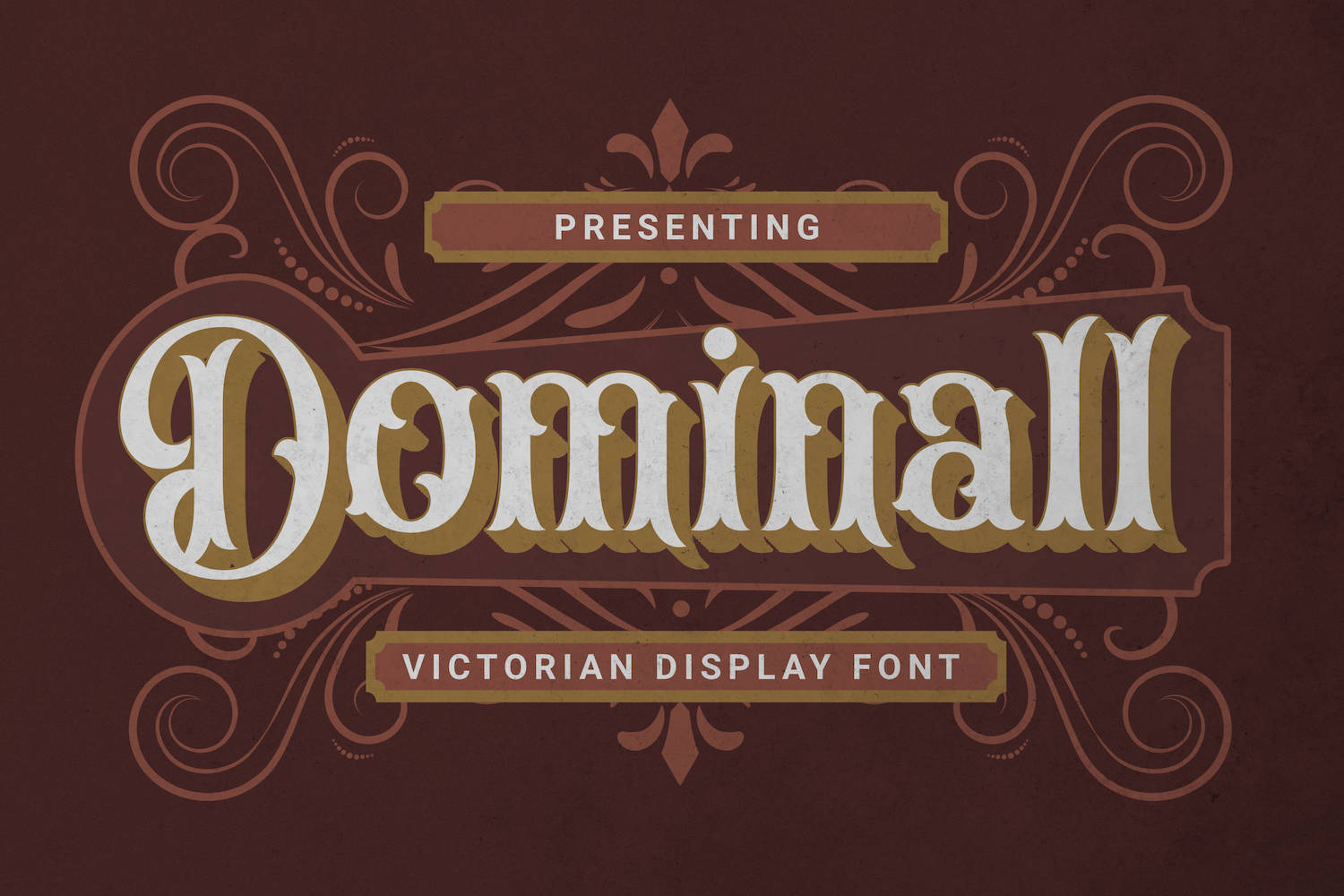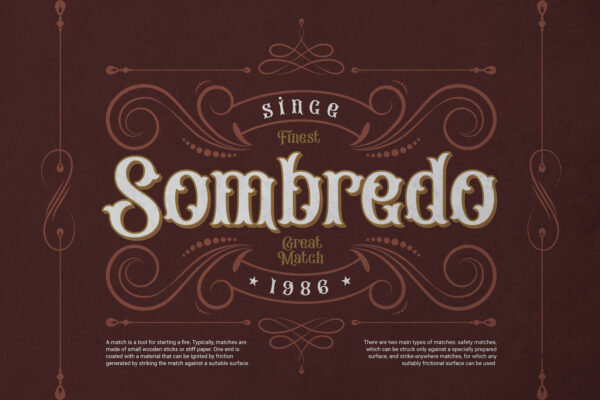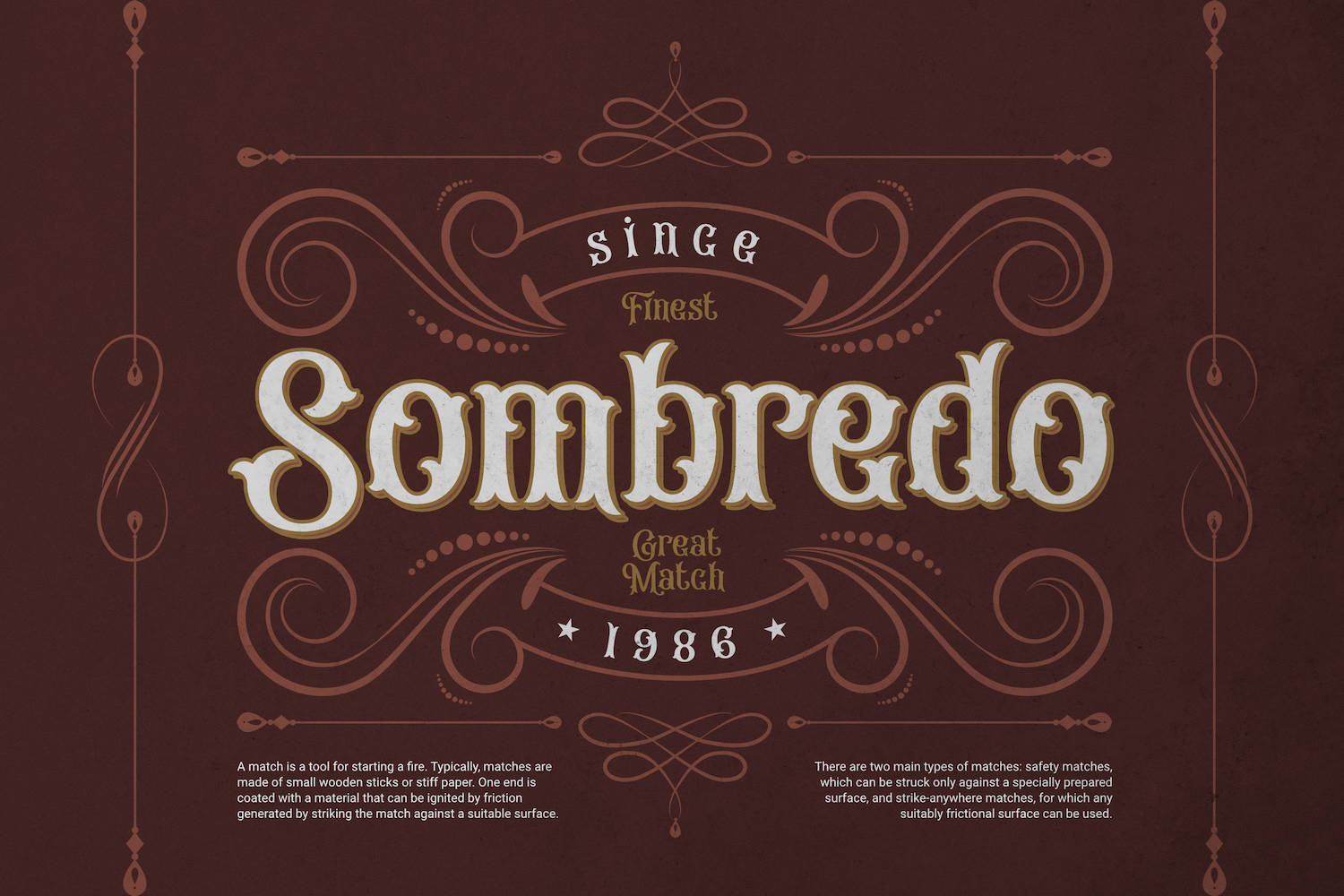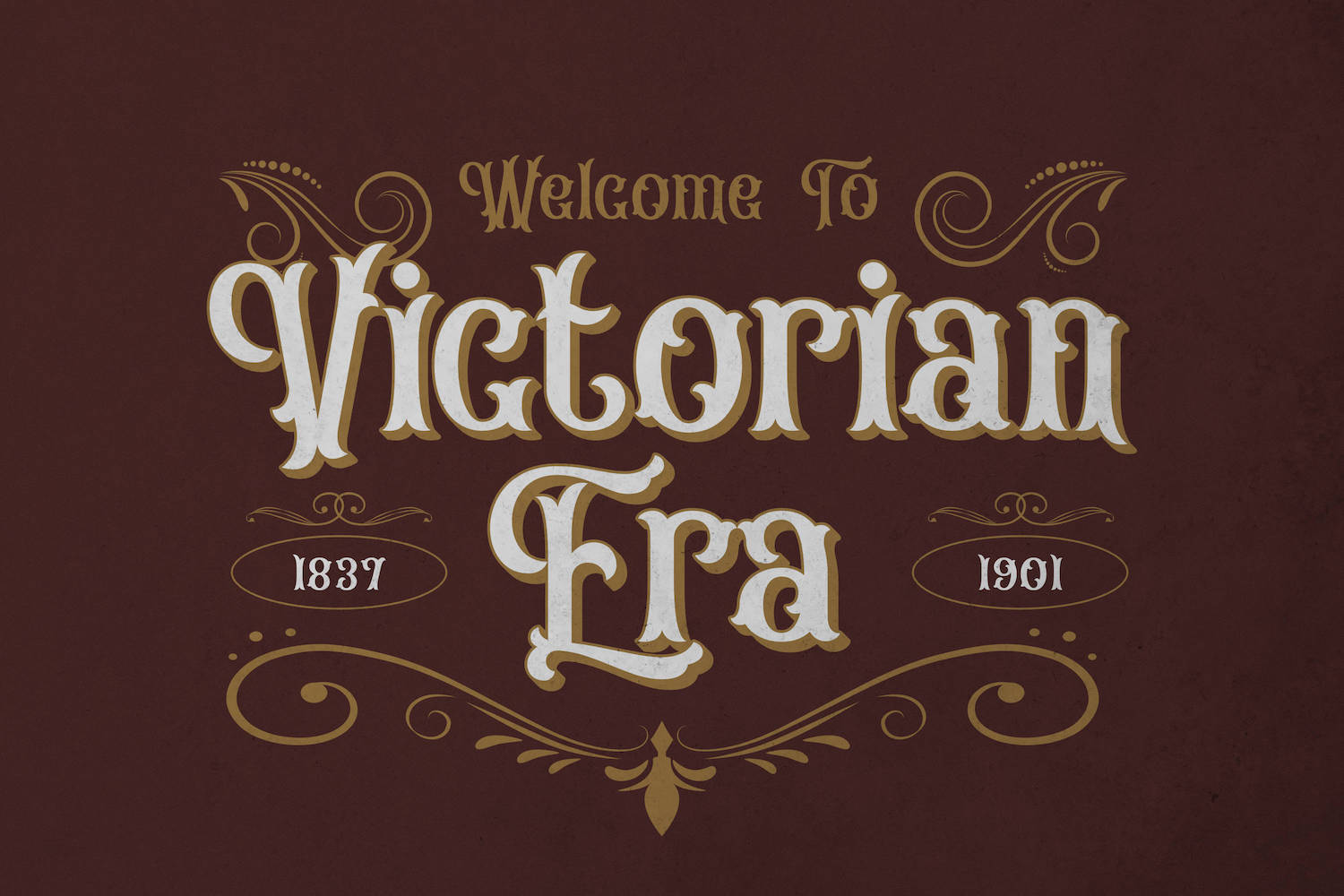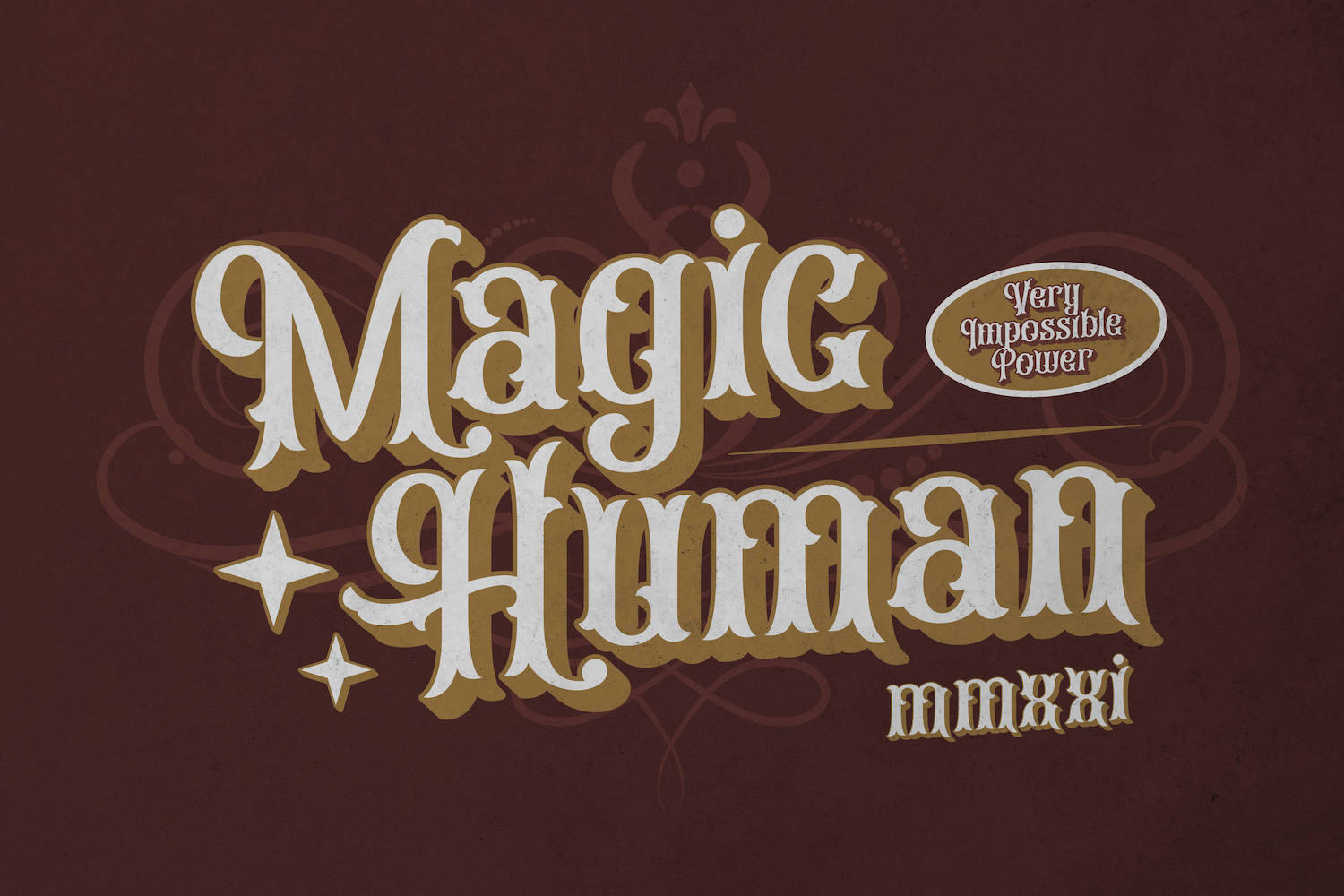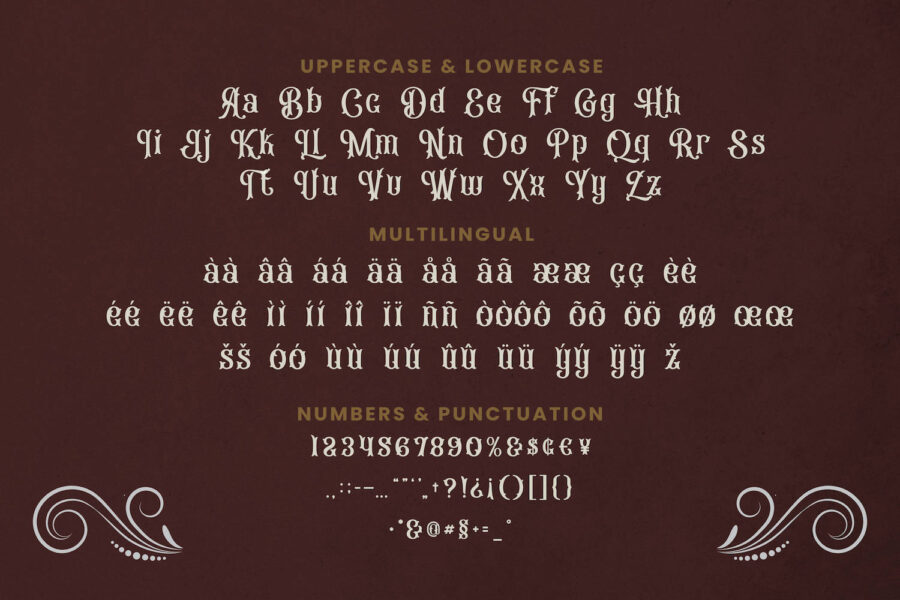
Dominall is a bold and ornate Victorian display font that exudes vintage elegance and intricate charm. Each character is meticulously designed with high contrast strokes, sharp serifs, and decorative flair, making it perfect for headlines, branding, packaging, and retro-themed designs. The font embodies the historical richness of the Victorian era while remaining adaptable to contemporary visual needs.
With multilingual support and a complete set of punctuation and numerals, Dominall is not just visually appealing but also practical for various projects. From vintage posters and classic signage to beverage labels and editorial headlines, this font adds an instant dose of sophistication and authenticity to any composition.